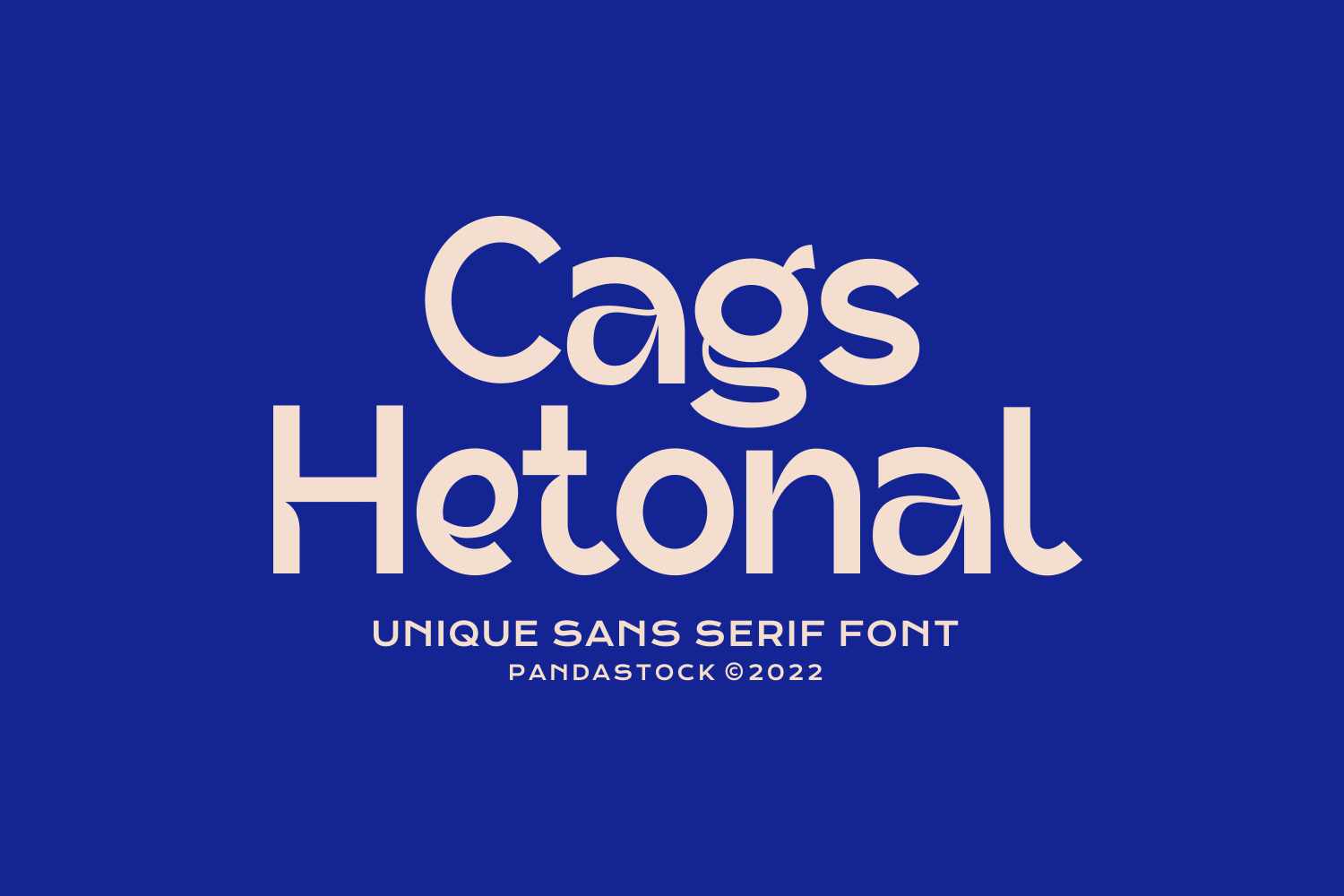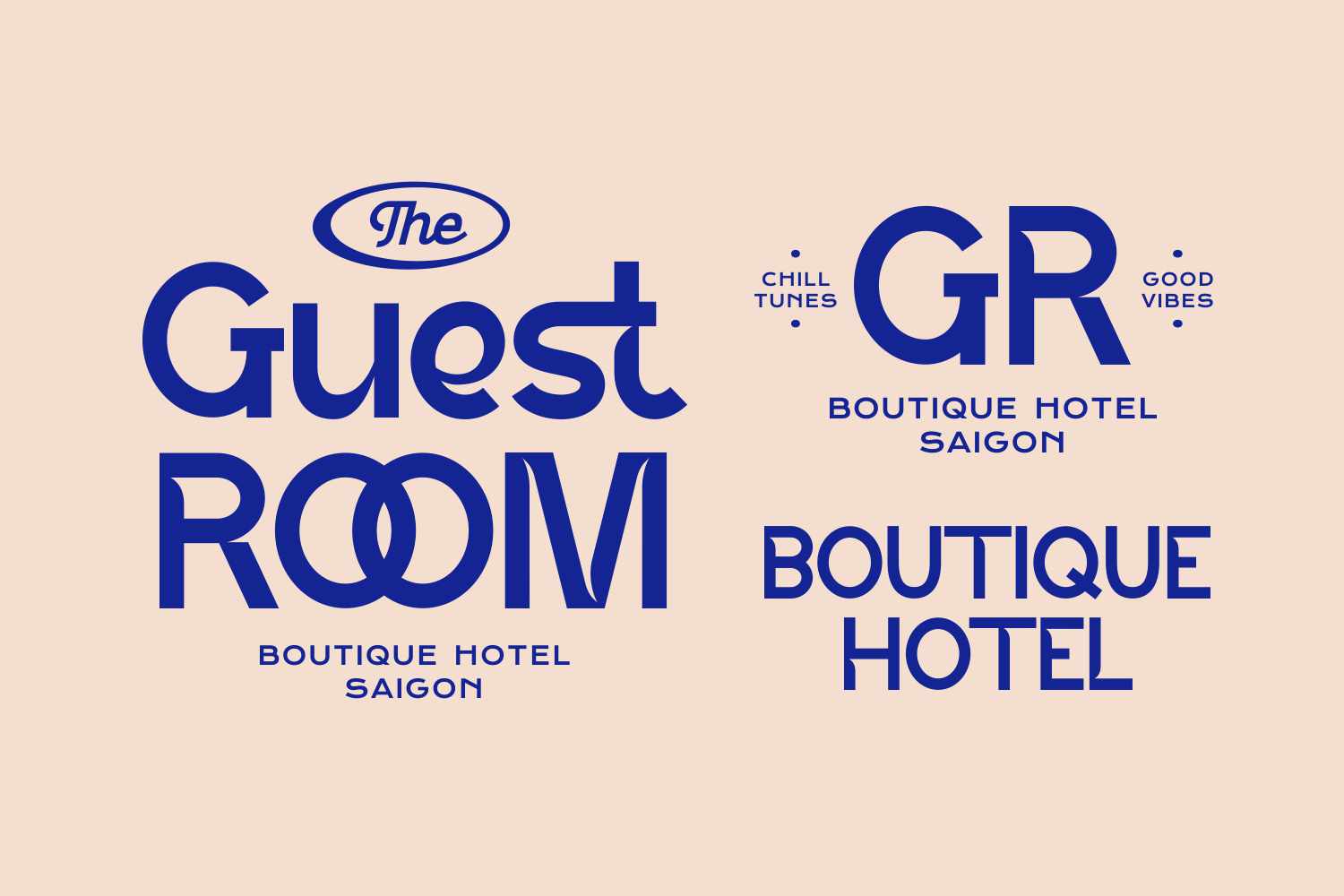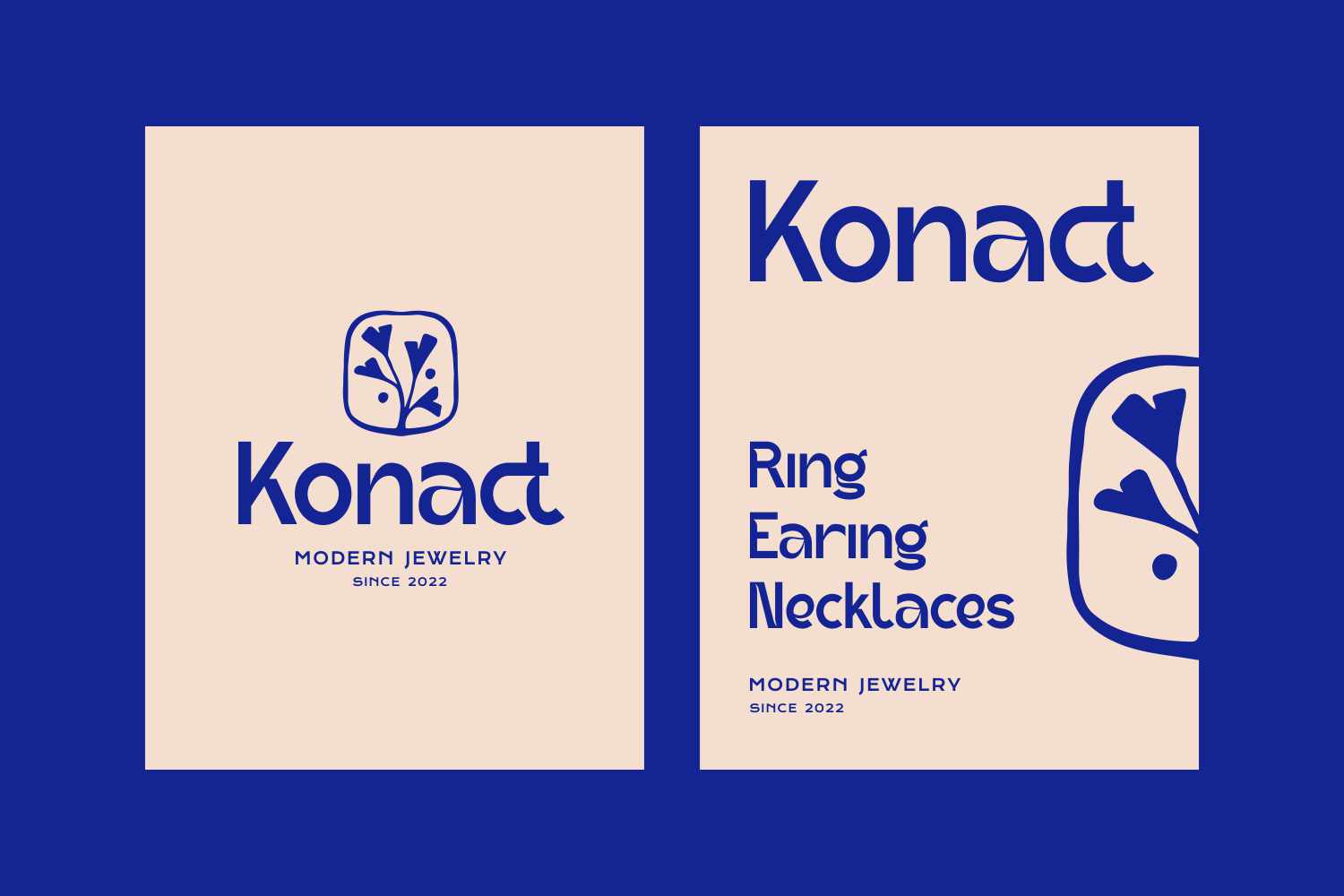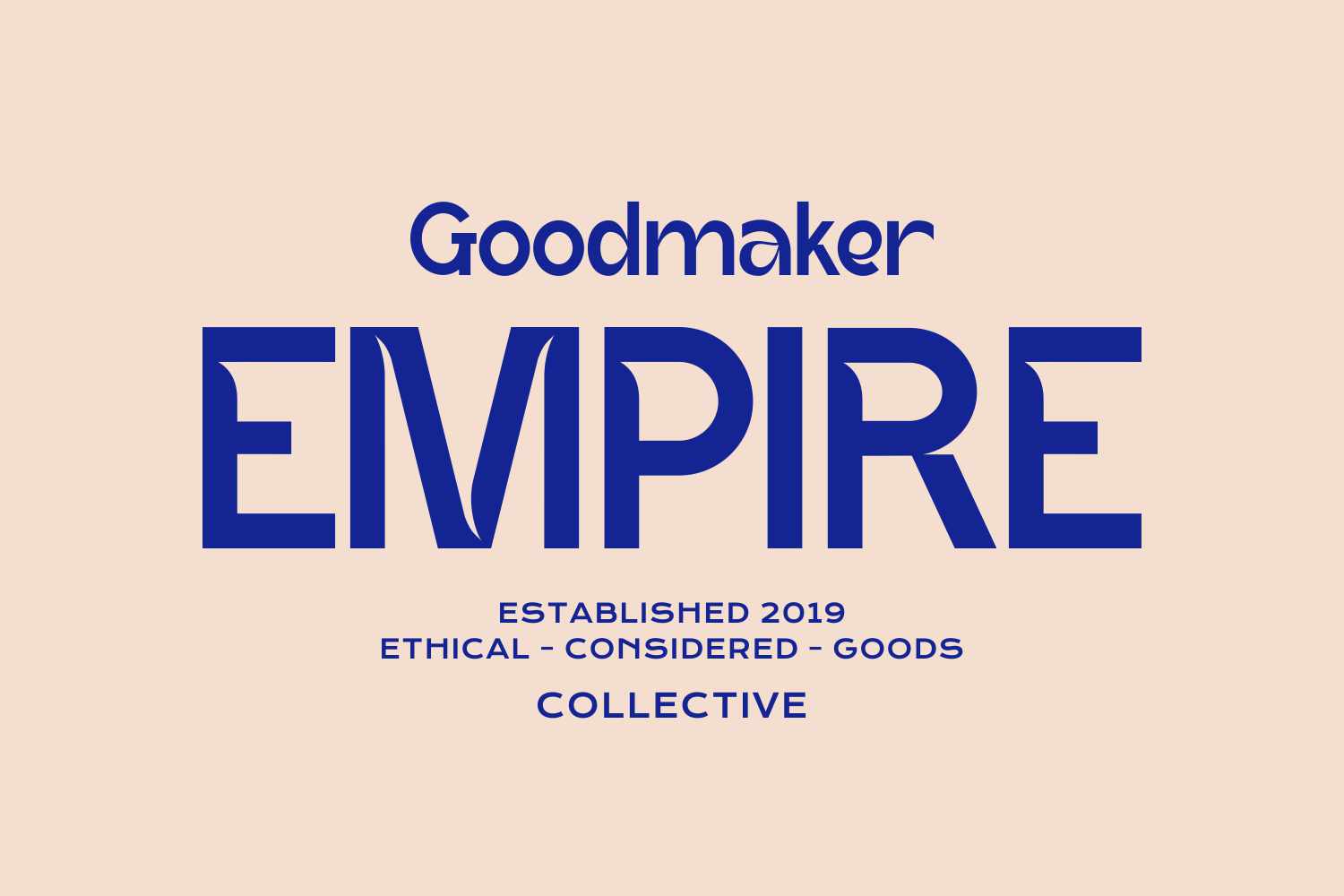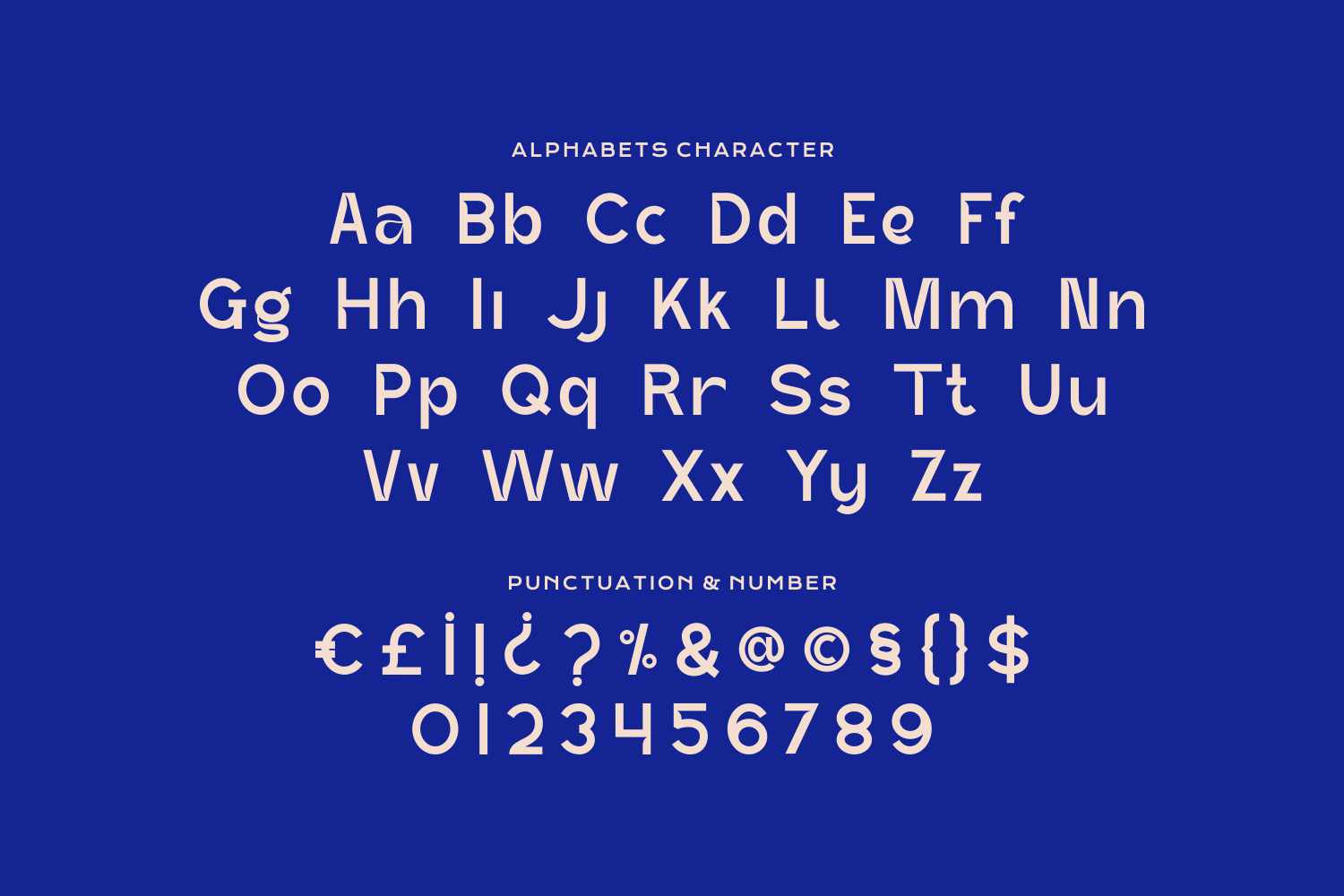
Cags Hetonal is a modern sans serif font that combines clean minimalism with playful geometric details. Its rounded edges and stylish alternates create a contemporary yet approachable look, making it suitable for branding projects, editorial design, and boutique identities. The font’s sleek curves and balanced proportions bring a sense of creativity and freshness to any layout.
Perfect for logos, posters, packaging, and digital media, Cags Hetonal works beautifully in both large display settings and smaller text applications. With its unique character and versatile style, this font helps your design stand out while maintaining a professional and modern feel.
Cags Hetonal